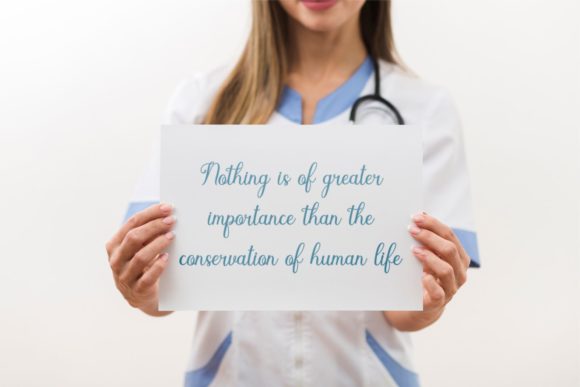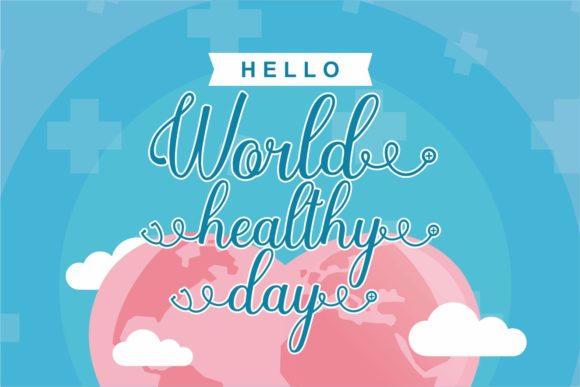
Hello Doctor Font
db-ku.com - Script & Handwritten -- Hello Doctor is a cute handwritten font. This amazing font is perfect for greeting cards, crafting projects, stationery and much more!